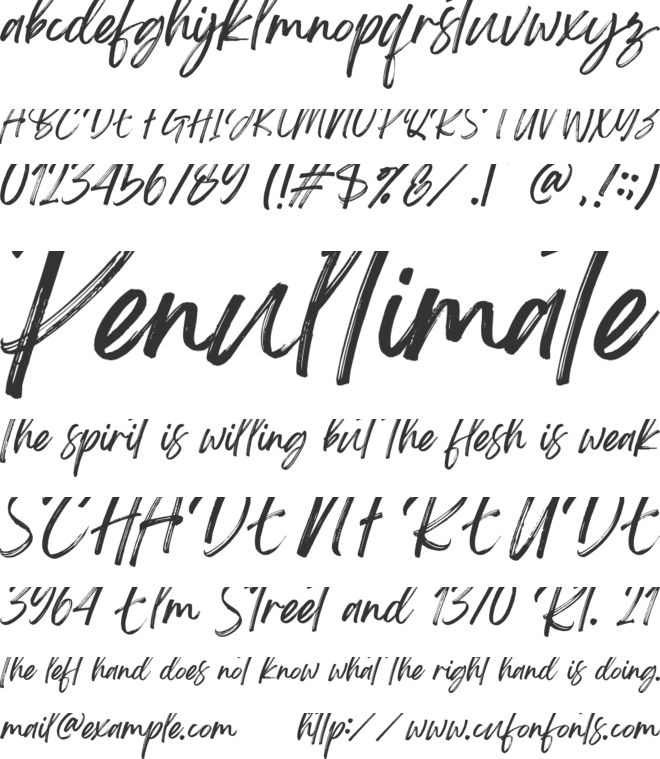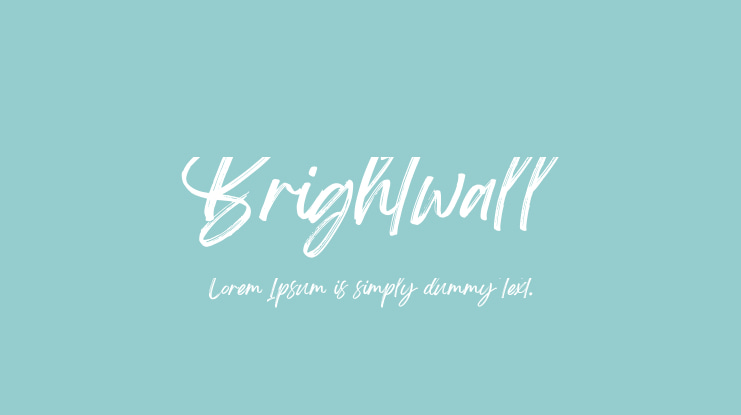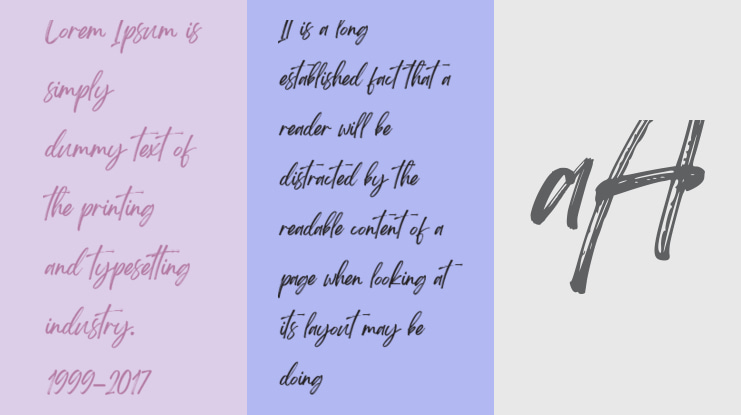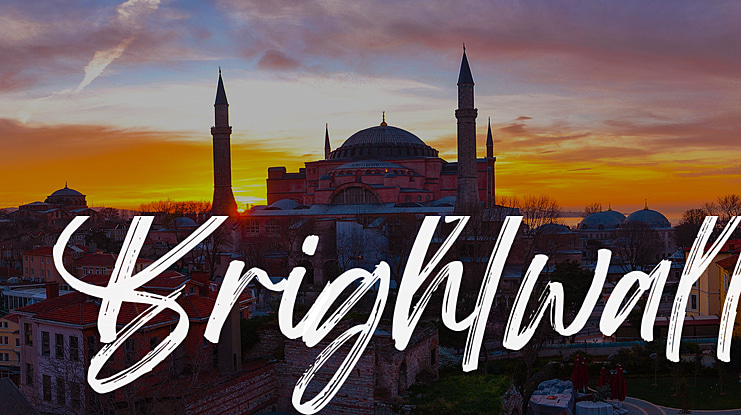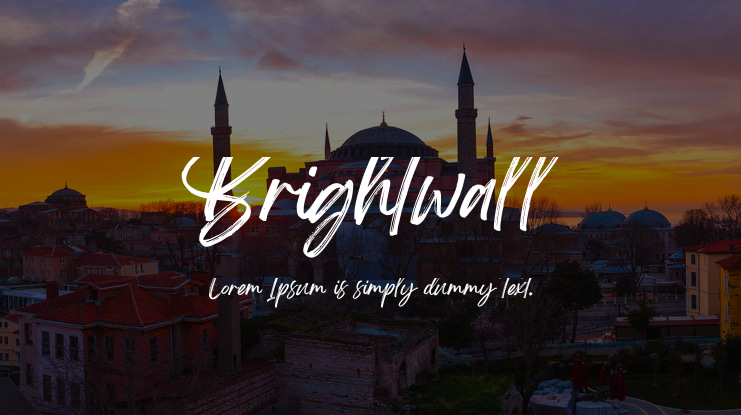
Brightwall Font
Donis Miftahudin
Hello... I want to introduce Brightwall Brush Font, This font suitable for your design project especially for branding packaging, lettering and others.